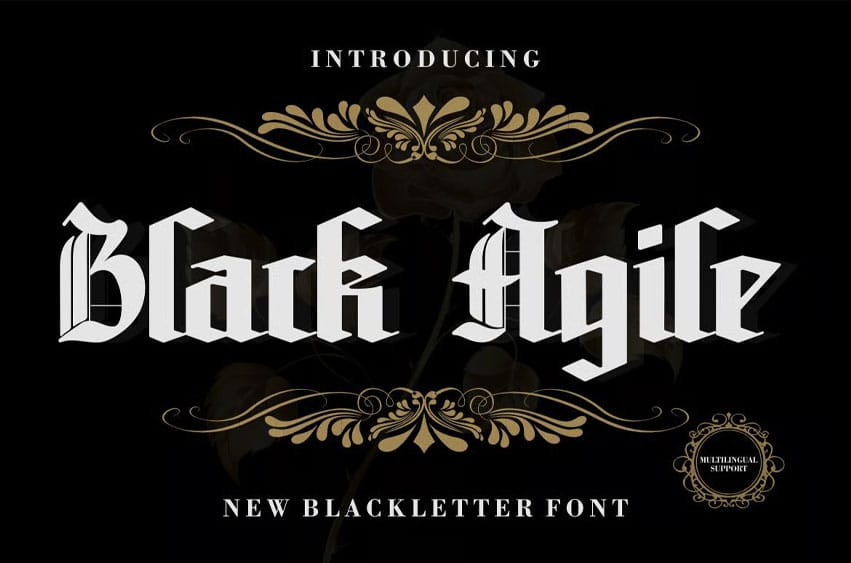
Black Agile Font Black letter font is a modern serif typeface crafted for timeless elegance and visual storytelling. Its clean contrast and subtle ligatures make it ideal for branding, fashion editorials, and luxury packaging.
Designed with cinematic grace, this font evokes sophistication and aesthetic harmony in every composition.
Font Features
Perfect For: Luxury branding, editorial headlines, packaging, and logo design.